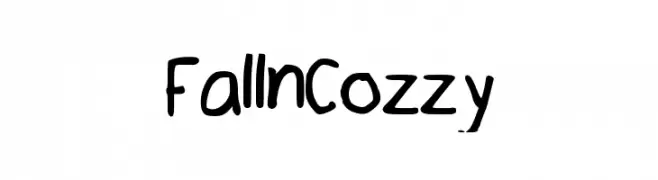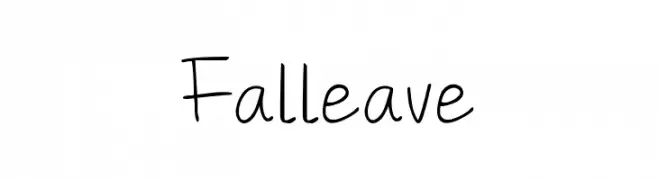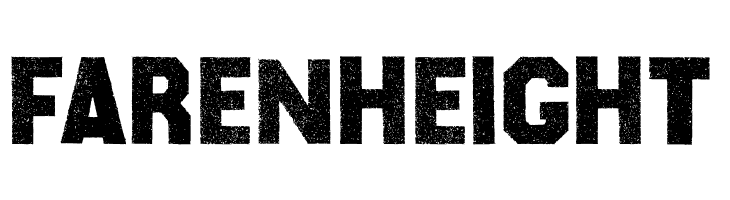
( FBFonts - www.fontspace.com/profile/fbfonts )
A playful, handwritten font with a casual and friendly style.
( Fonts by Si Panji )
A bold, graffiti-style font with a unique dripping effect.
( Fonts by Tigadestd )
Playful handwritten font with casual style.
( Fonts by Letterena Studios )
Decorative handwritten script font.
( Font Monger - www.fontmonger.com )
A bold, distressed font with a rugged, grunge aesthetic.
( Font Monger - www.fontmonger.com )
A rugged, distressed serif font with a bold, vintage appearance.
A lively and expressive handwritten font with fluid strokes and dynamic style.
( Fonts by Muhammad Yafinuha )
( Fonts by Misti's Fonts )
A bold, textured font with a vintage, hand-crafted appearance.
( Fonts by weknow - Wino S Kadir )
An elegant, flowing cursive font with modern and classic elements.